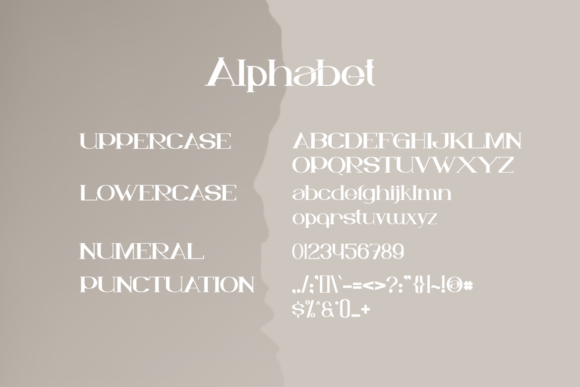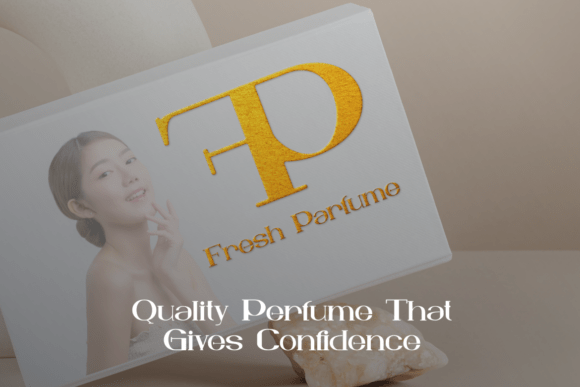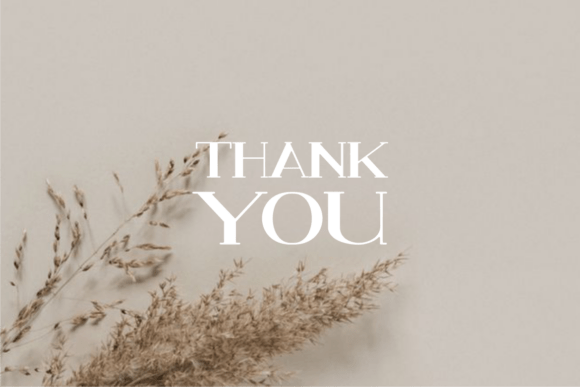
Introducing Chalent Style Font: Elevate Your Designs with Luxury and Sophistication
In the world of typography, fonts play a crucial role in conveying the tone and personality of a brand or design. For those seeking to add a touch of luxury and sophistication to their projects, Chalent Style Font is an exceptional choice. This high-end serif font is meticulously crafted to exude class and elegance, making it perfect for a variety of applications, from luxury branding and wedding invitations to fashion magazines and upscale packaging.
The Essence of Chalent Style Font
Chalent Style Font is distinguished by its elegant curves and exquisite details. Its refined, timeless design ensures that it remains relevant and stylish, regardless of current trends. The font’s serif characteristics add a level of sophistication and tradition, while its unique flair sets it apart from more conventional typefaces. Whether you’re working on a high-end brand identity, a luxurious product packaging, or a stylish editorial project, Chalent Style Font is designed to elevate your design to new heights.
Perfect for Luxury Branding
Luxury branding requires a font that communicates exclusivity, quality, and prestige. Chalent Style Font meets these criteria with its sophisticated and elegant appearance. It can be used to create stunning logos, business cards, and marketing materials that reflect a brand’s high-end status. With Chalent Style Font, brands can convey a sense of refinement and luxury, helping them to stand out in a crowded market.
Ideal for Wedding Invitations and Stationery
For wedding planners, stationery designers, and couples looking for a unique and elegant way to announce their special day, Chalent Style Font offers a beautiful solution. Its classic and sophisticated design makes it perfect for wedding invitations, save-the-date cards, and other stationery. The font’s luxurious feel adds a touch of romance and sophistication to any wedding or event stationery, setting the tone for a memorable celebration.
Enhance Fashion Magazines and Editorials
Fashion magazines and editorials require fonts that are stylish, yet readable. Chalent Style Font’s elegant design and clear letterforms make it an excellent choice for headlines, titles, and body text. It can add a touch of glamour and sophistication to any fashion publication, helping to elevate the overall aesthetic and appeal of the magazine or editorial.
Upgrading Packaging Design with Chalent Style Font
For brands looking to upgrade their packaging design, Chalent Style Font offers a versatile solution. Its luxurious appearance makes it perfect for product labels, packaging inserts, and brand storytelling. By incorporating Chalent Style Font into their packaging design, brands can convey a sense of quality and exclusivity, enhancing the overall unboxing experience for their customers.
Why Choose Chalent Style Font?
There are several reasons why designers and crafters should consider Chalent Style Font for their projects:
- Elegance and Sophistication: Chalent Style Font exudes luxury and refinement, making it perfect for high-end projects.
- Versatility: It can be used for a variety of applications, from branding and advertising to editorial and packaging design.
- Timeless Design: The font’s classic design ensures it remains stylish and relevant over time.
- Attention to Detail: Chalent Style Font features exquisite details that set it apart from other serif fonts.
| Font Name | Chalent Style Font |
| Author | Kenrichi |
Chalent Style Font is a luxurious serif font that brings elegance and sophistication to any design project. Its refined appearance, exquisite details, and timeless design make it an excellent choice for luxury branding, wedding invitations, fashion magazines, and upscale packaging. By incorporating Chalent Style Font into their designs, designers and crafters can elevate their projects to new heights of style and sophistication. Whether you’re looking to create a stunning brand identity, a beautiful wedding invitation, or a stylish editorial, Chalent Style Font is the perfect choice for those who demand the best.